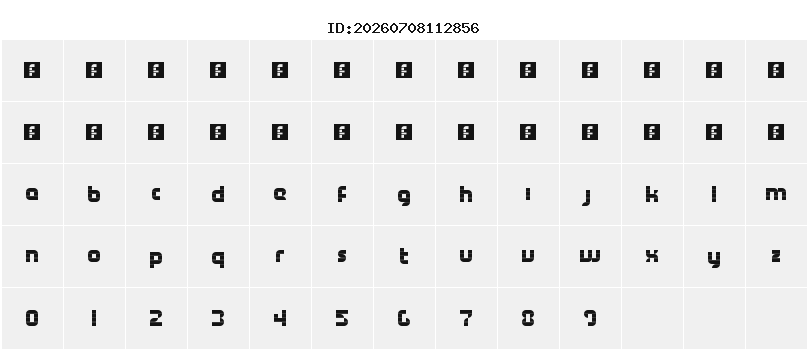
• Font Name: Dafont.com
• Designer: Font Ners
• Description: ‚ÄúDafont.com‚Äù was built with FontStruct ‚ÄúDafont.com‚Äù is based on ‚ÄúStructurosa‚Äù by ‚Äúpaul hunt‚Äù (http://fontstruct.com/fontstructors/pauldhunt)
Dafont.com.ttf is a modern, elegant sans-serif font designed for ultimate readability and visual harmony. Perfect for branding, headlines, web design, and print materials.